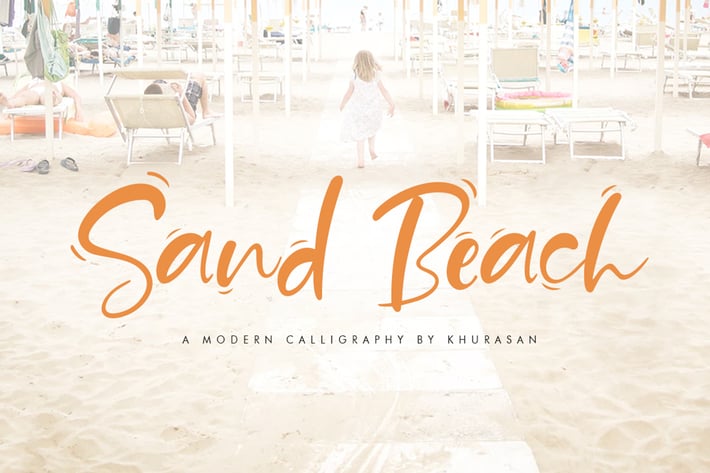
Sand Beach Font
Introducing, Sand Beach Script a font modern calligraphy typeface with cheerful theme for your fun project. Sand Beach font includes awesome characters in 2 different styles. Sand Beach script font suitable for logo, branding, greeting card, poster and any design that you create.
Multilingual support ÀÁÂÃÄÅÇEÈÉÊËIÌÍÎÏNÑOØÒÓÔÕÖUÙÜÚÛWYÝŸ?ŸÆ